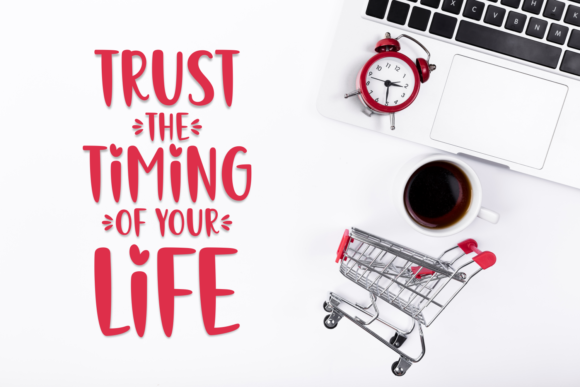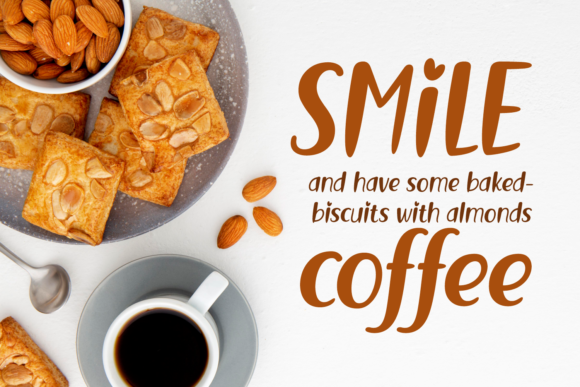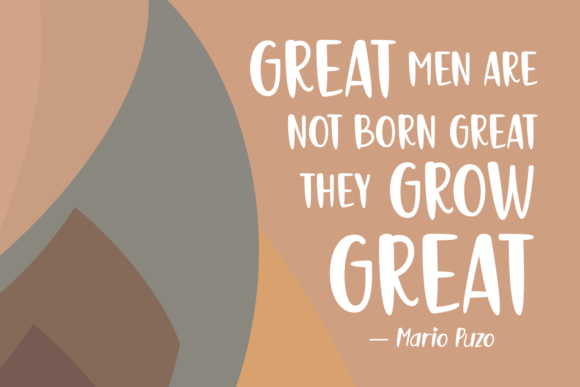
Introduction to New Frienk Font
Have you ever been working on a creative project, and suddenly, you need the perfect font to bring your design to life? That’s exactly what happened to me when I was working on a branding campaign for a local bakery. I was browsing through a library of high-quality fonts, searching for something that would capture the sweet and friendly essence of the bakery, when I stumbled upon the New Frienk Font.
As soon as I downloaded the New Frienk Font, I knew I had found the perfect design resource. Its natural and unique style made it incredibly fitting to the bakery’s brand identity. The font’s versatility and charm allowed me to create a wide range of designs, from logos to social media graphics, all with a consistent and recognizable tone. With the New Frienk Font, the possibilities are endless, and the best part? It’s available for a free download with a transparent background, making it a valuable addition to any designer’s toolkit.
Key Features of New Frienk Font
- High-quality design resource ideal for creative projects requiring a unique touch.
- Unique characteristics include a modern, clean aesthetic and a wide range of stylistic alternatives.
Honest Review: New Frienk Font
I recently came across the New Frienk Font and was excited to see how it would perform in my creative project. As a designer, I’m always on the lookout for high-quality design resources that can elevate my work. The New Frienk Font does not disappoint.
One of the standout features of this font is its high quality and versatility. It’s perfect for any creative project, from logos to posters and everything in between. I particularly liked that it’s available for free download, making it an excellent resource for designers on a budget.
- High-quality design that’s perfect for logos, posters, and more
- The font may not be suitable for large-scale text due to its relatively small character set
Overall, I’m impressed with the New Frienk Font and would highly recommend it to any designer looking for a high-quality, free design resource. It’s a great addition to any design toolkit and can help take your creative projects to the next level.
Tips for Getting the Most Out of New Frienk Font
To get the most out of the New Frienk Font, experiment with different font sizes, colors, and styles to create a unique look. You can also use the font in combination with other design elements, such as images and graphics, to add depth and interest to your design.
The New Frienk Font is perfect for a variety of creative projects, including social media graphics, blog posts, and marketing materials. Its high quality and versatility make it an excellent choice for designers of all levels.